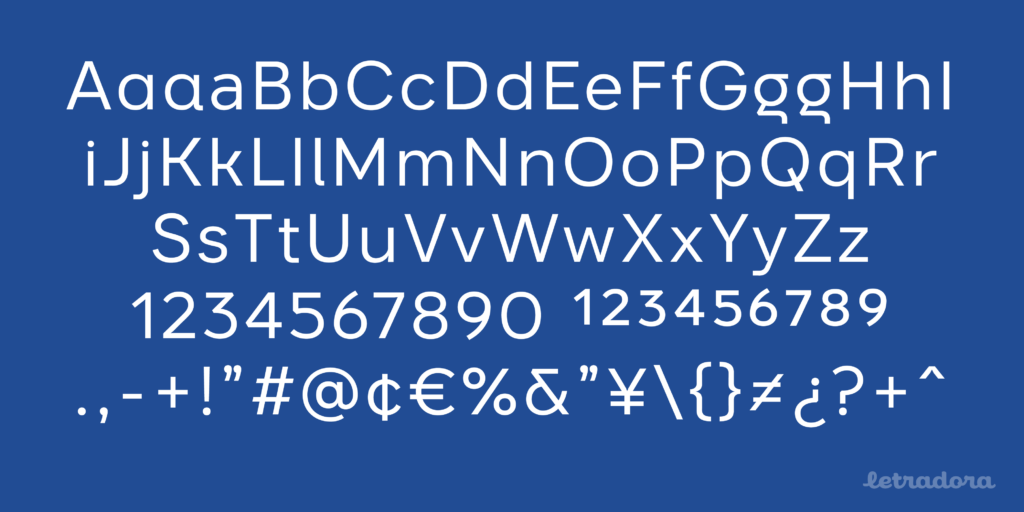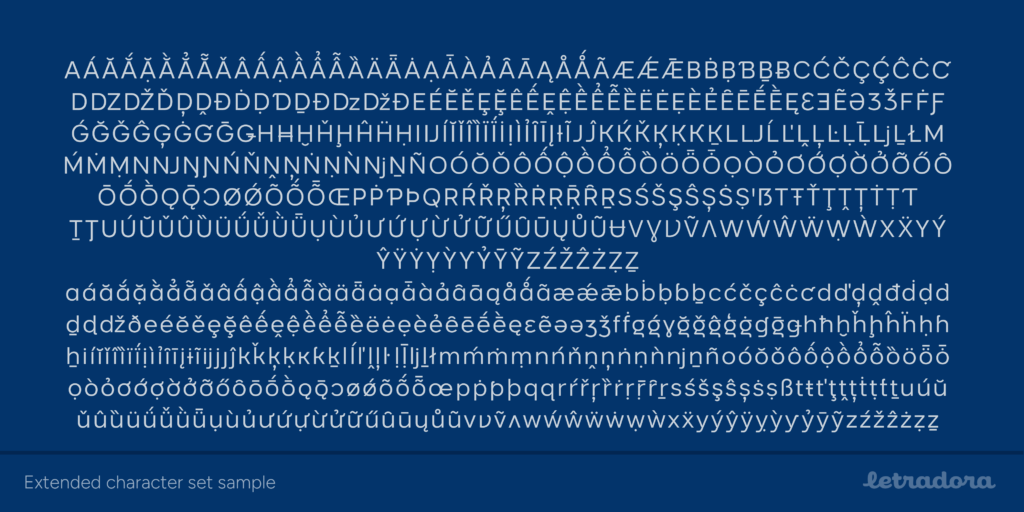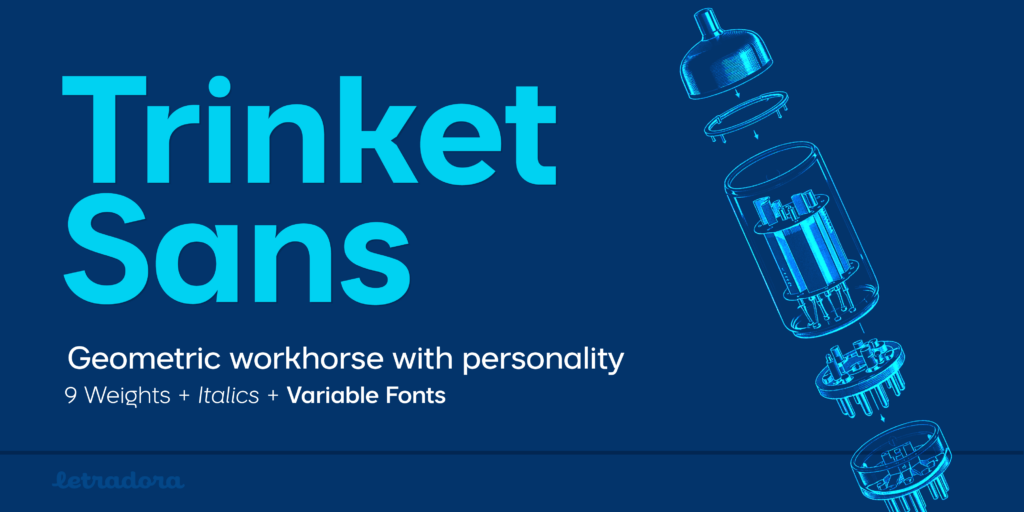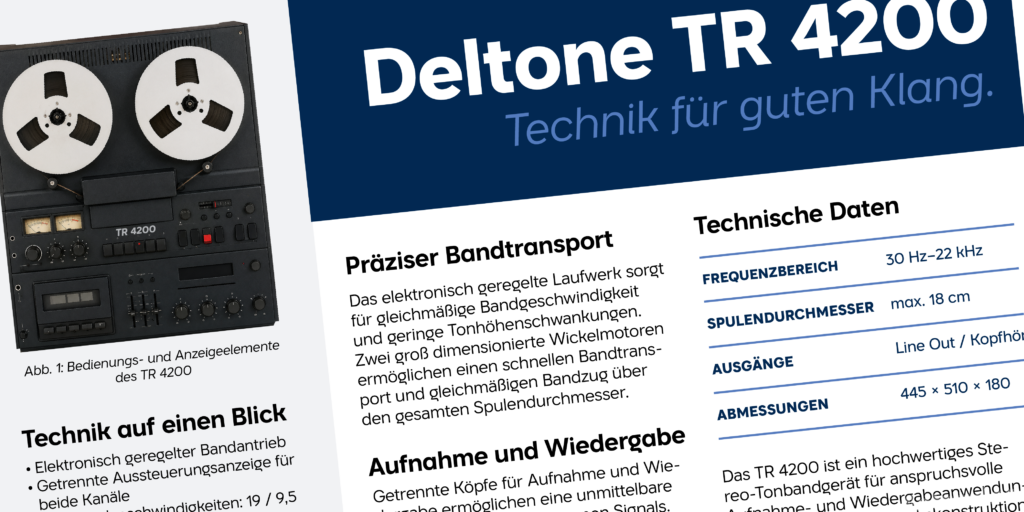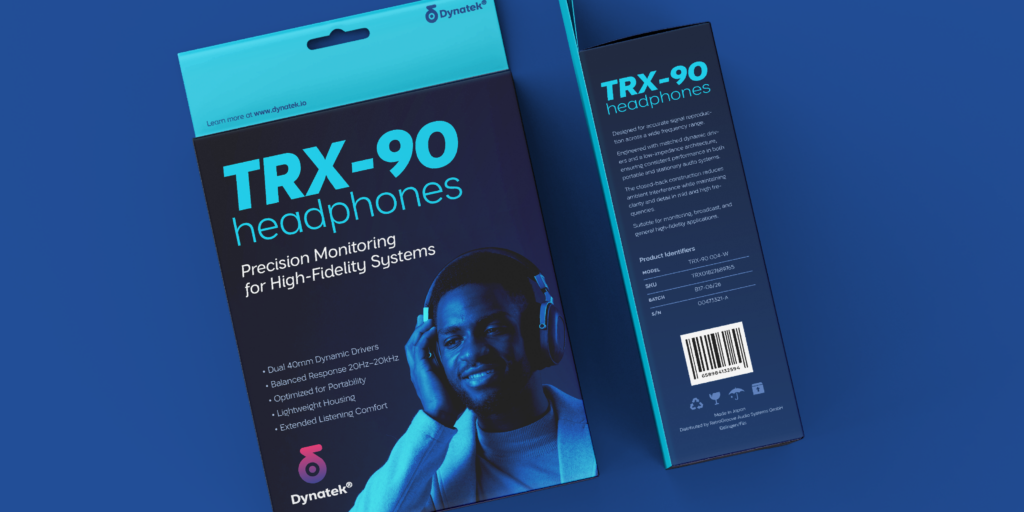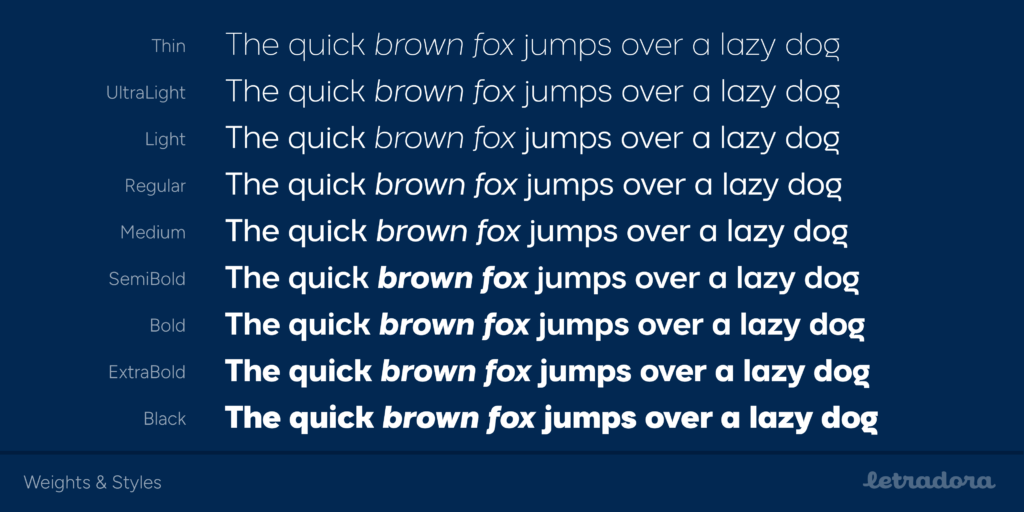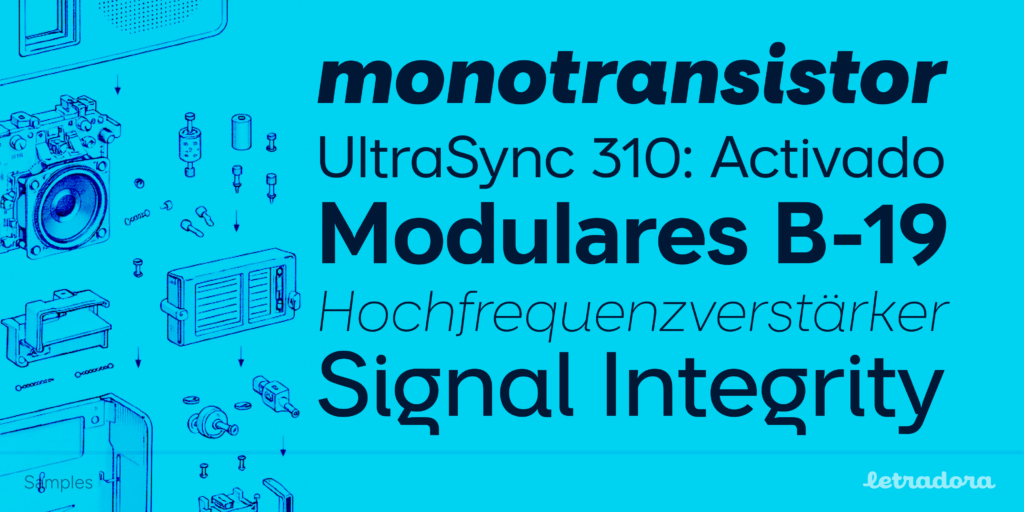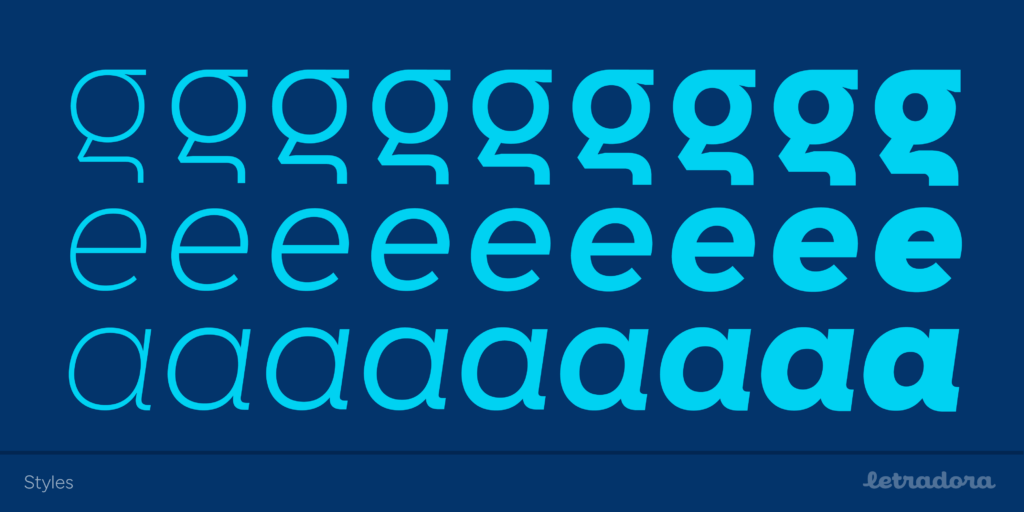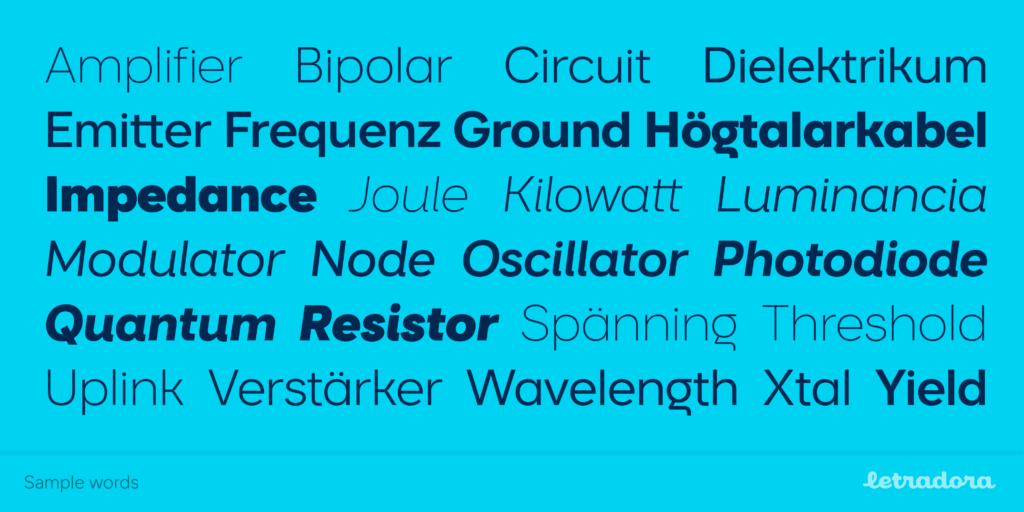
Trinket Sans
Modern geometric sans-serif font with inktraps. 9 weights with italics, variable fonts included
Trinket Sans is a versatile geometric sans serif with a distinctive voice. Clean shapes and carefully drawn details give it an approachable character without compromising clarity, making it equally at home in display typography, editorial work, branding and everyday text.
Designed as a companion to Trinket, it shares the original family’s proportions and personality while replacing its expressive ink traps with smoother, more conventional joins. The two families can work independently or together as a broader typographic system.
Trinket Sans ranges from Light to Black, with true italics throughout, and is available as both a variable font and static styles. Its extensive character set includes small caps, alternate forms and broad multilingual support.